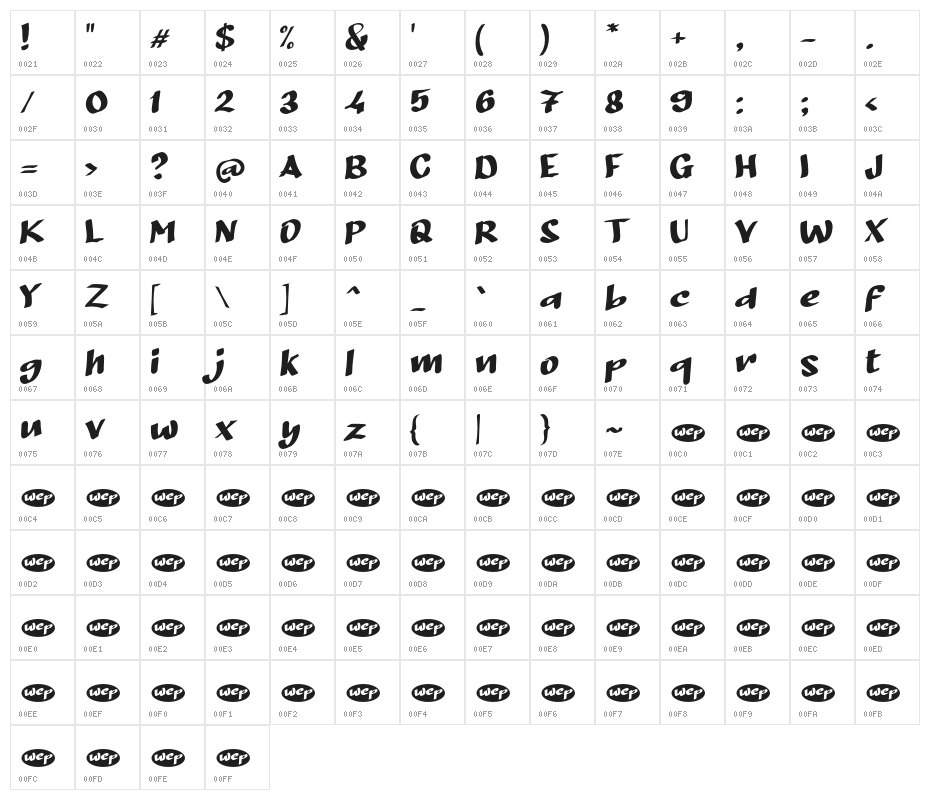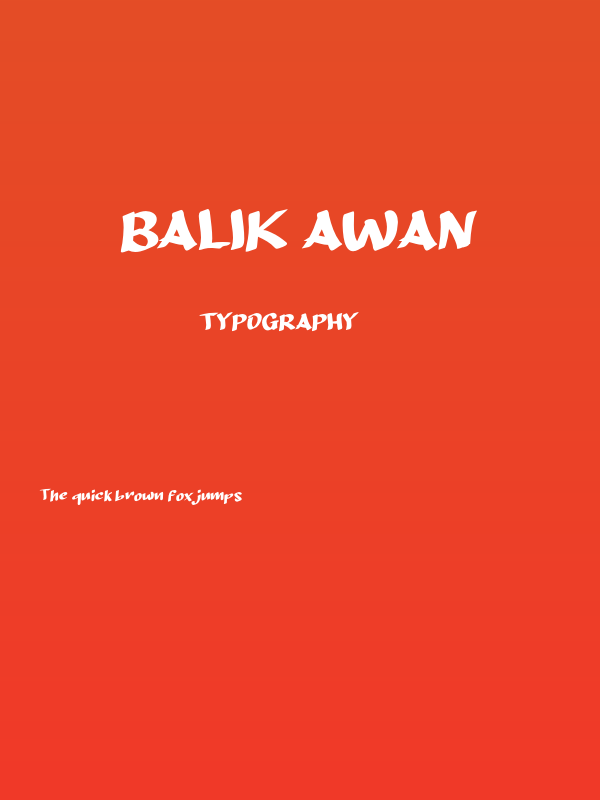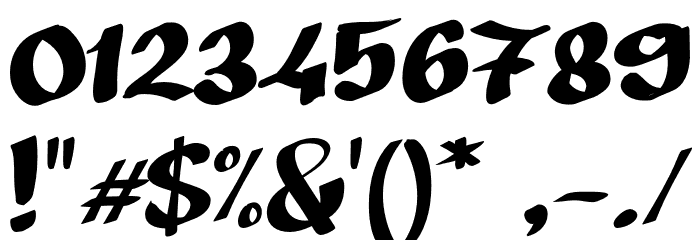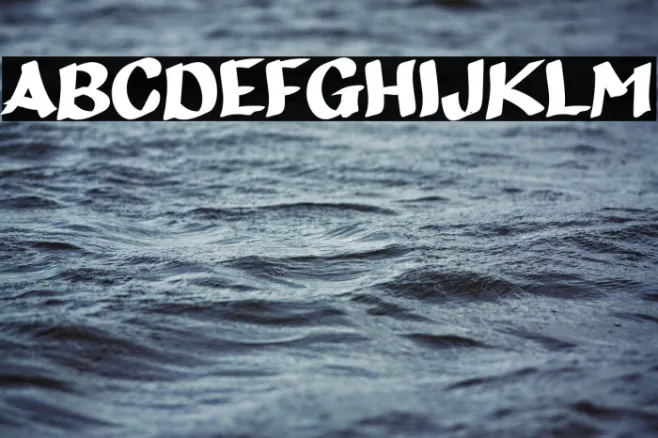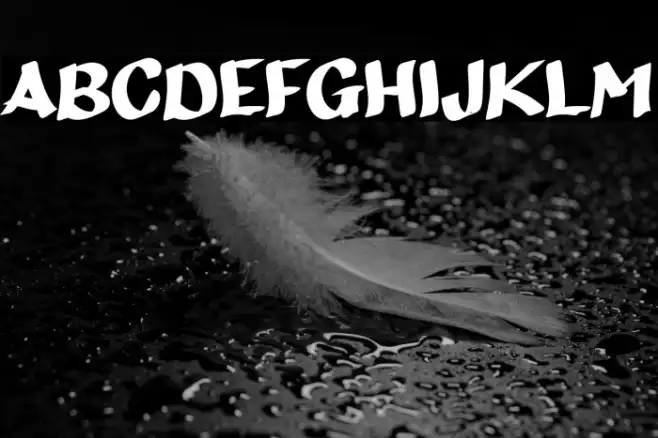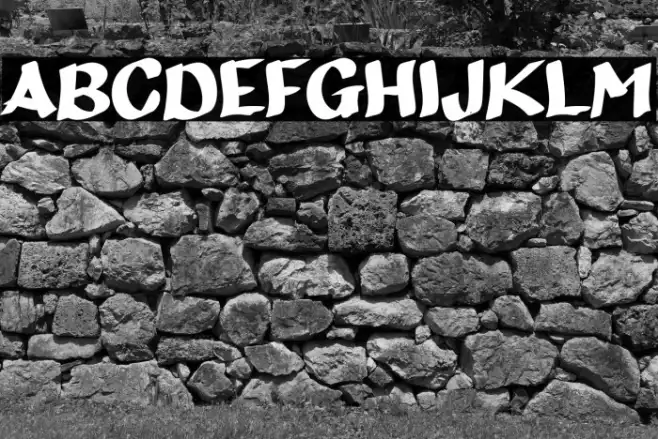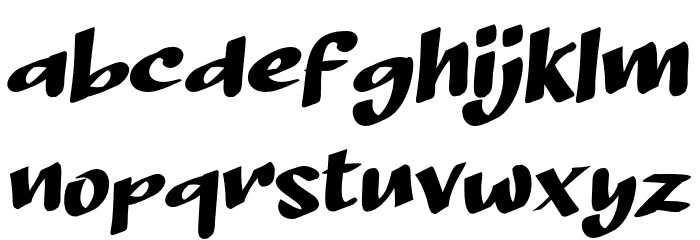
Balik Awan Font
Balik Awan Description
This font features a bold and dynamic style with a brush-like appearance, giving it a lively and energetic feel. The characters are slightly slanted, adding a sense of movement and fluidity. The strokes are thick and consistent, providing a strong visual impact. The uppercase letters are bold and commanding, while the lowercase letters maintain a playful yet assertive presence. The numerals and special characters follow the same bold and expressive design, making the font suitable for attention-grabbing headlines and creative projects.
| Proposed Projects | Ideal for posters, branding, logos, and any project requiring a bold, artistic touch. |